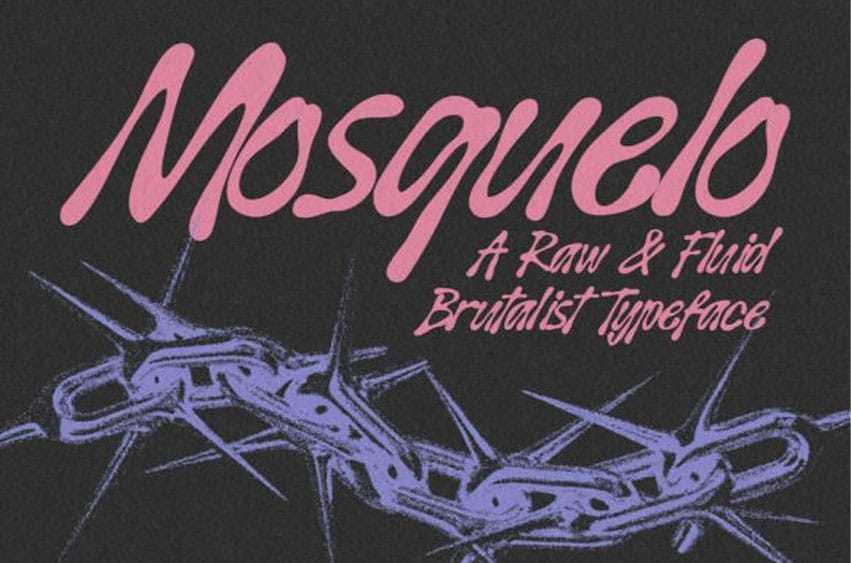
Mosquelo Font Inject raw Y2K energy, edgy streetwear attitude, and unpolished expressive motion into your typography with MOSQUELO! Crafted as a raw and fluid brutalist typeface, it features bold distorted strokes, wavy calligraphic loops, and an aggressive, expressive rhythm that breaks standard design rules.
Perfect for underground streetwear apparel, Y2K aesthetic posters, edgy album artwork, skate brand logos, music festival branding, sticker packs, and custom vinyl craft SVG projects, MOSQUELO brings untamed visual chaos and rebellious style to every headline!